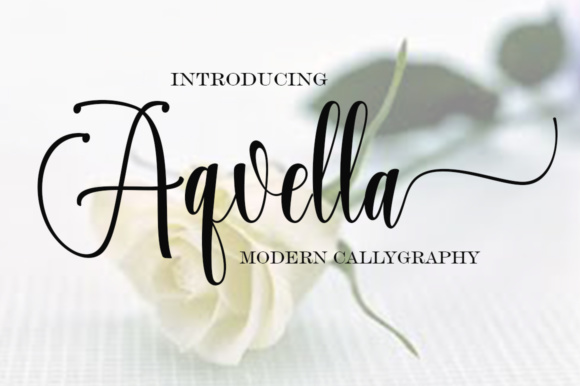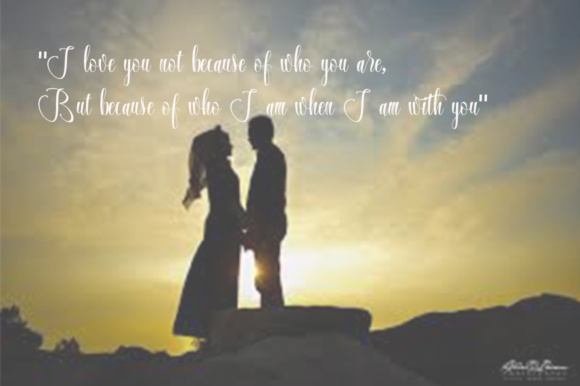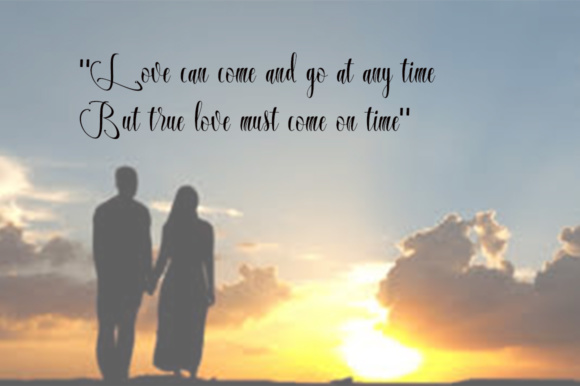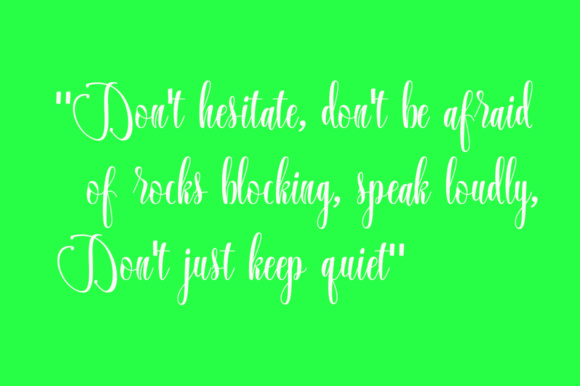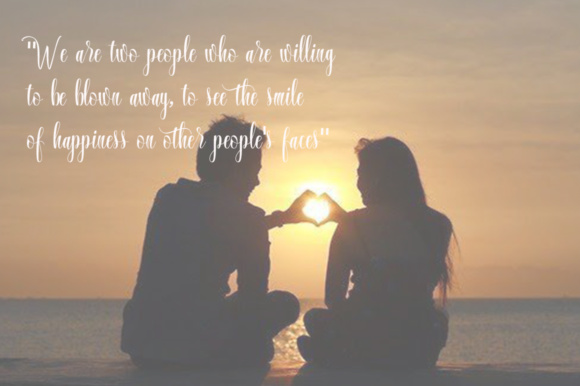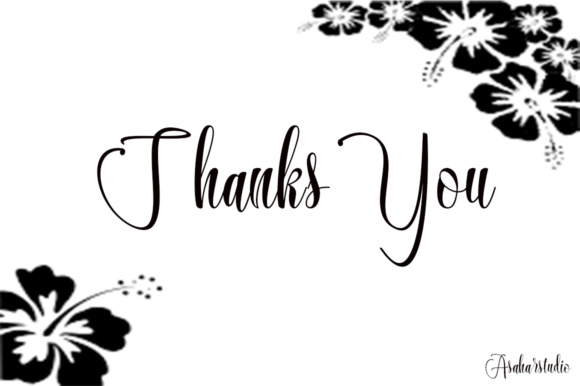
HomeScript FontsAqvella Font Script Fonts Aqvella Font FacebookXPinterestWhatsApp Aqvella Font Poster 2 Aqvella Font Poster 3 Aqvella Font Poster 4 Aqvella Font Poster 5 Aqvella Font Poster 6 About Aqvella Font The Aqvella is a beautiful and unique calligraphy font. It has a modern writing style and a good readability. DOWNLOAD NOW People also explored Rhonely Font Gobbie Font Star Doodle Font Daisy Duo Font Chyga Font Saffior Font Pigeon Post Paristime Font Asti Lovely Babe Font 284 0 TagsAqvella Font Previous articleGerlivtey FontNext article5 Seconds Font LEAVE A REPLY Cancel reply Comment: Please enter your comment! Name:* Please enter your name here Email:* You have entered an incorrect email address! Please enter your email address here Website: Save my name, email, and website in this browser for the next time I comment. Personal Use Free Deftone Personal Use Free Read more about this font Clumed Personal Use Free Read more about this font Morning Miow Personal Use Free Read more about this font Gunplay Personal Use Free Read more about this font BLOG To increase your work productivity, choose the most readable fonts. In today's fast-paced work environment, where digital communication and information consumption are integral to our daily routines, the choice of fonts can significantly impact... 5 Fonts That Will Dominate Design Trends in 2026 Top 10 Handwritten Fonts That Elevate Your Designs How to Install and Use Fonts on Windows, macOS, and Web Projects